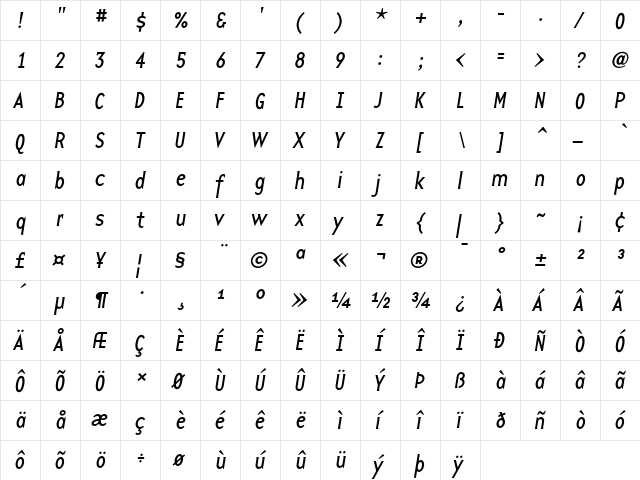
BaseTwelve Medium Font Preview
BaseTwelve Medium
BaseTwelve Medium Font Details
| Foundry | C) Emigre Graphics; designed by Zuzana Licko |
Design Context for BaseTwelve Typeface
BaseTwelve takes a measured approach to typography — its balanced proportions and neutral character make it a reliable workhorse for both digital and print work.